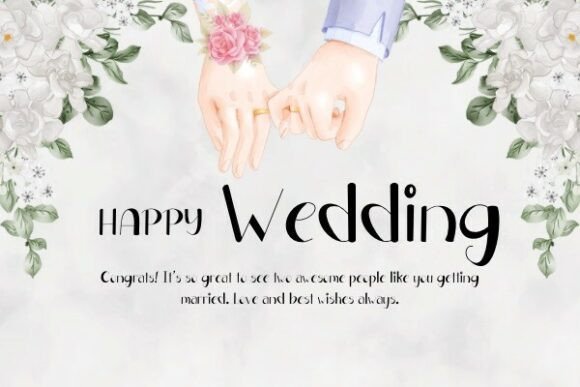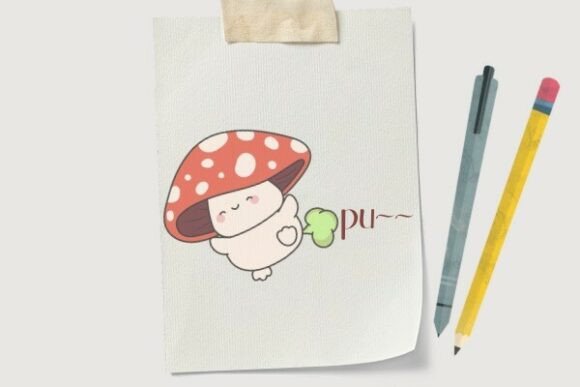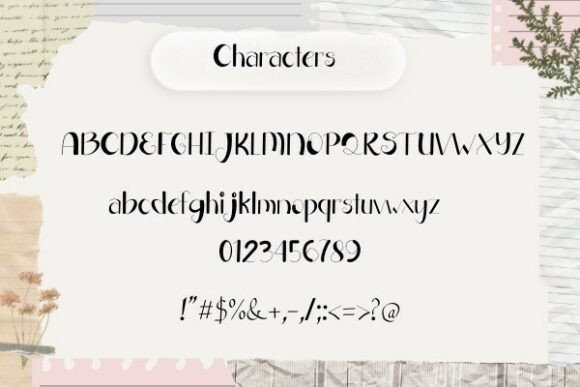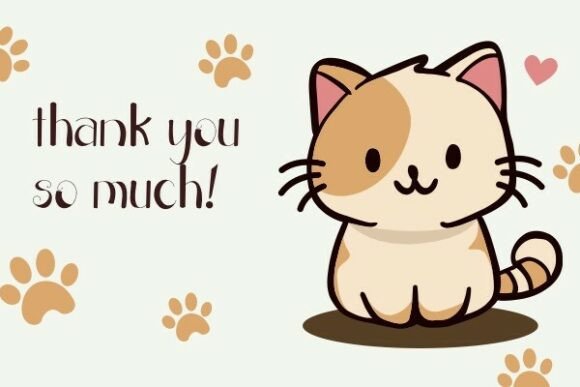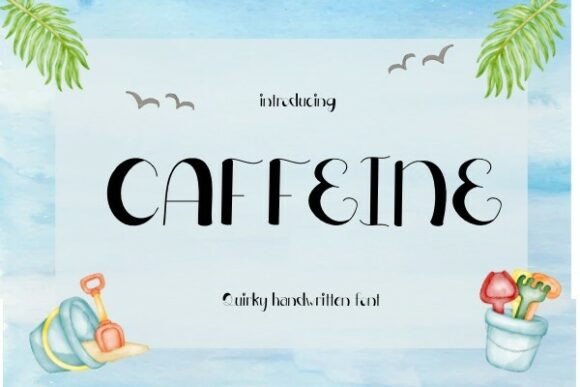
The Ultimate Guide to Caffein Font: Adding a Dose of Playful Energy to Your Designs
I’ll never forget the time I was working on a branding project for a trendy coffee shop. My client wanted a font that would capture the carefree, artistic vibe of their cafe, but I was struggling to find the perfect fit. That was until I stumbled upon Caffein Font, a quirky handwritten typeface that instantly resonated with the client’s vision. In this article, I’ll share my love for Caffein Font, its unique features, and provide a comprehensive guide on how to use it in your designs.
What Makes Caffein Font So Special?
Caffein Font is a one-of-a-kind, handmade font that exudes a playful, energetic personality. Its bouncy, organic letterforms feature soft curves and unique, asymmetrical loops that give it a charming, whimsical feel. This friendly, approachable font is perfect for designs that require a dash of creativity and fun.
An Honest Review of Caffein Font
- ✅ Unique, handmade aesthetic that’s perfect for creative projects
- ✅ Friendly, approachable feel that’s great for kids’ content, events, and lifestyle branding
- ✅ Extensive OpenType features, including stylistic alternates and glyphs
- ⚠️ Some letters may require manual kerning for optimal spacing
- ⚠️ Limited suitability for formal or corporate designs, due to its playful nature
The Story Behind Caffein Font
Caffein Font was designed with the intention of capturing the carefree, artistic spirit of a weekend morning. Its creator, a type designer with a passion for handmade crafts, wanted to create a font that would evoke the feeling of a hand-drawn sign on a coffee shop window. With Caffein Font, you’ll get the perfect blend of playfulness and creativity to bring your designs to life.
Q: What makes Caffein Font so unique?
A: Caffein Font features bouncy, organic letterforms with soft curves and unique, asymmetrical loops that give it a charming, whimsical feel.
Q: Is Caffein Font suitable for children’s content?
A: Absolutely! Caffein Font’s friendly, approachable feel makes it perfect for kids’ books, games, and educational materials.
Q: Can I use Caffein Font on my social media profiles?
A: Yes, Caffein Font is a great choice for social media headers, graphics, and posts, especially for lifestyle, food, or travel-related content.